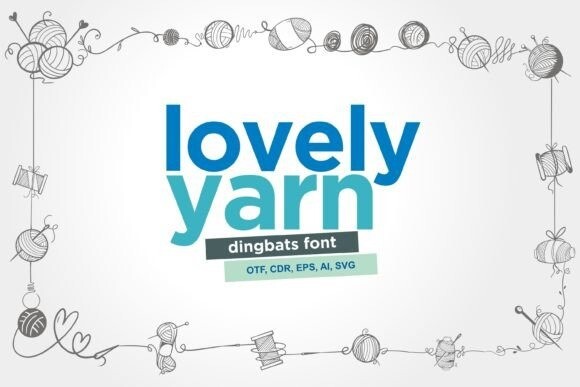
Lovely Yarn Font
Lovely yarn Font is a playful dingbat font. These are hand-drawn dingbats that can be used for a variety of purposes, be it decorating designs or decorating plans. Add them to your creative ideas and make your designs outstanding!